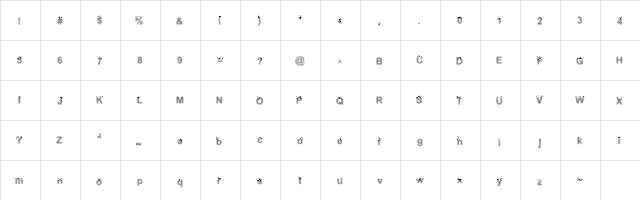
Half Tone Arial Normal
Design Context for Half Tone Arial Typeface
Half Tone Arial is a composed and adaptable typeface that performs quietly and consistently across a wide range of design contexts.